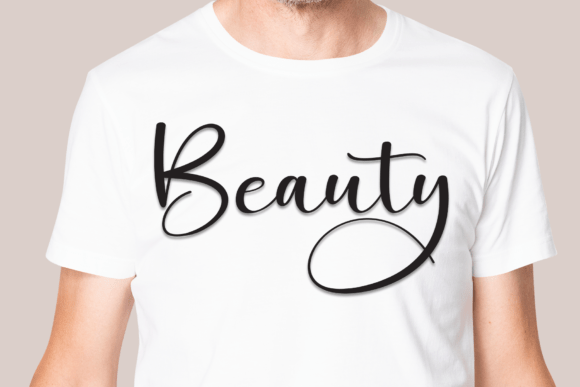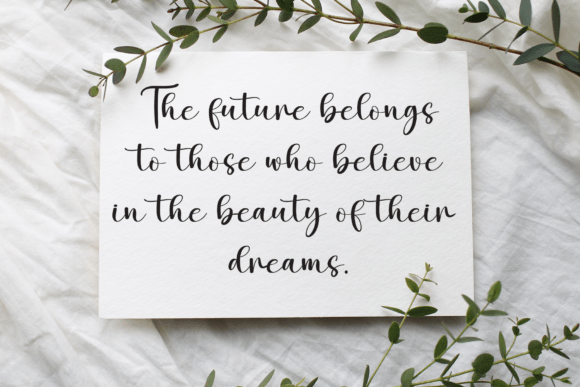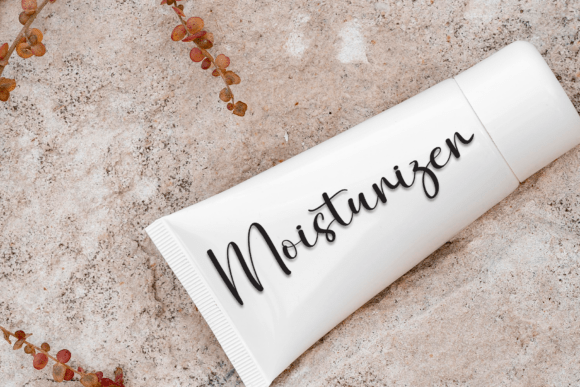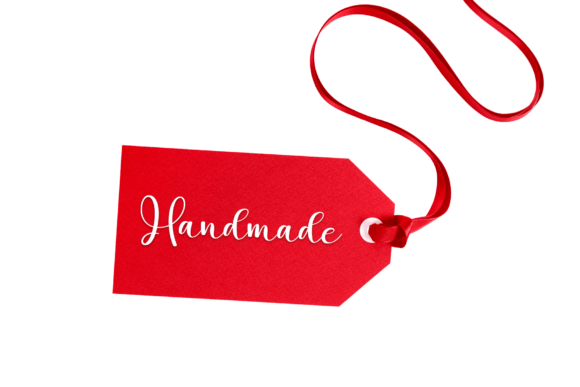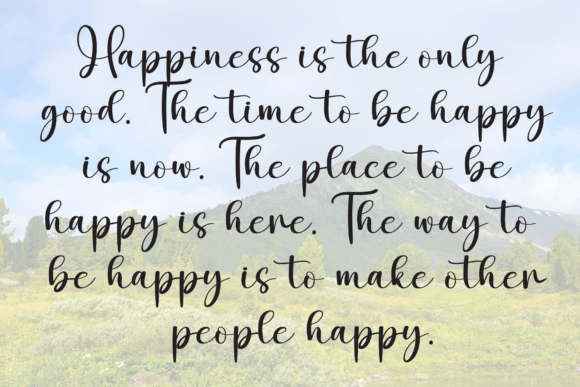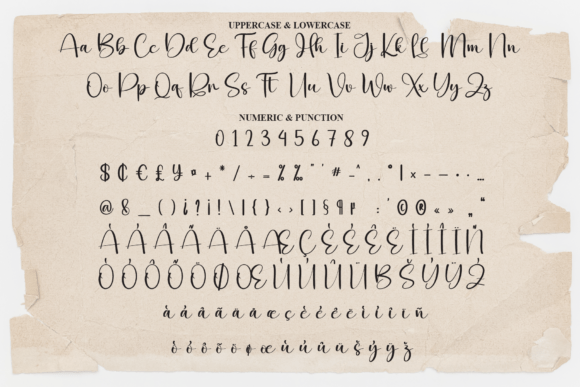
Introduction to Note Vintage Font
Note Vintage is a stylish handwritten script font that combines elegance with a modern flair.
Its flowing strokes and organic curves bring warmth and sophistication to any project Ideal for branding, invitations, and social media, this typeface adds a personal, refined touch with effortless charm.